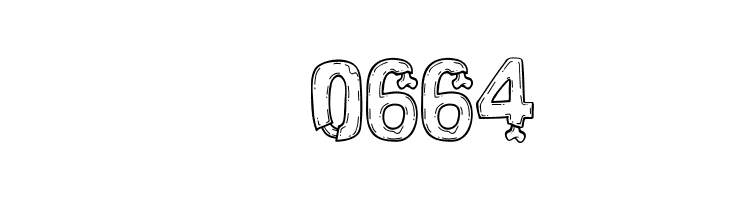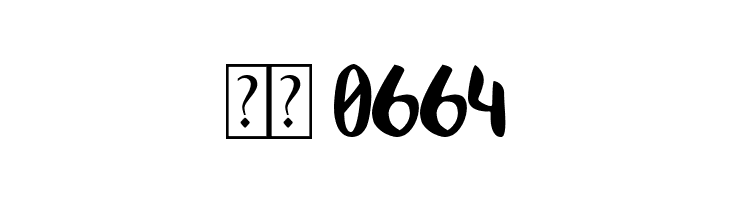
A playful, handwritten-style font with bold, energetic characters.
A bold, decorative font with a blend of modern and vintage elements.
A bold, distressed font with a rugged, edgy appearance.
A playful, bone-themed font with a spooky, hand-drawn style.
A bold, geometric font with a modern and strong visual impact.